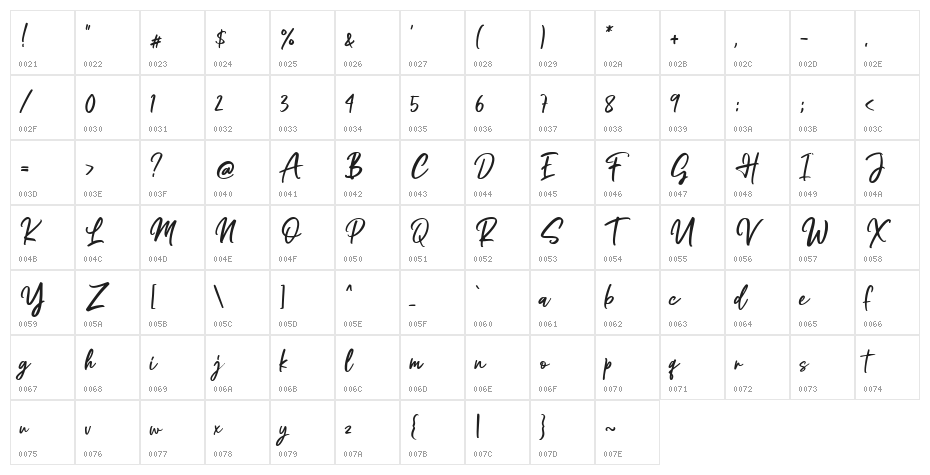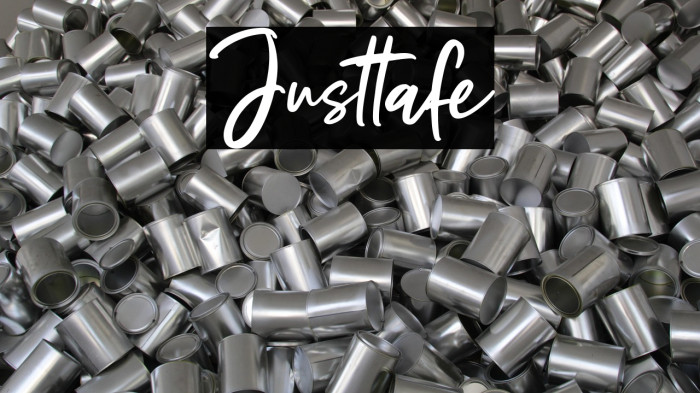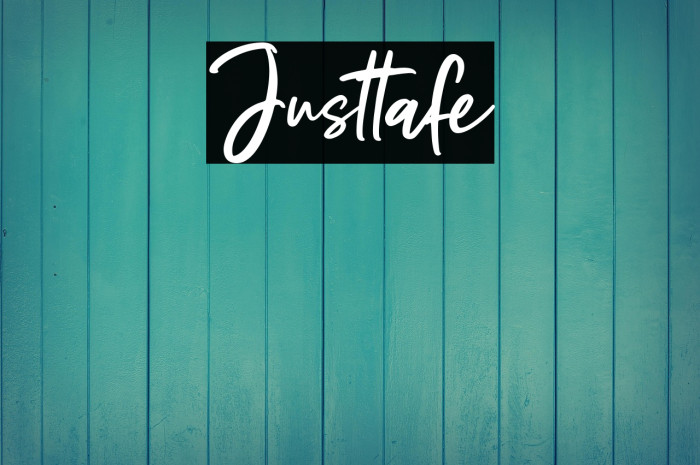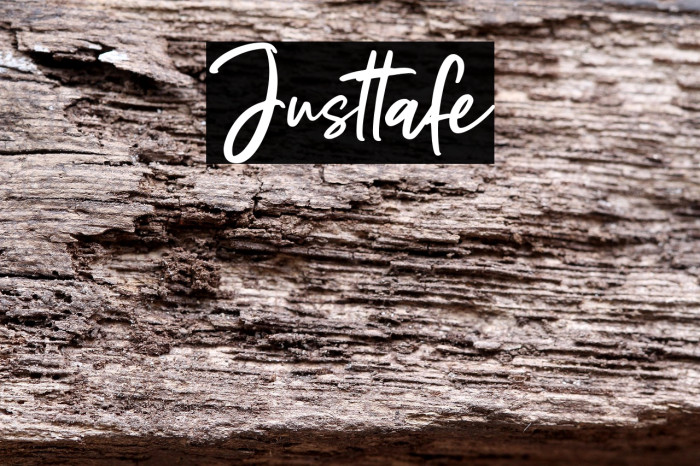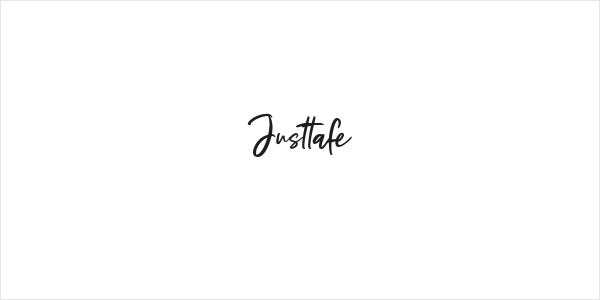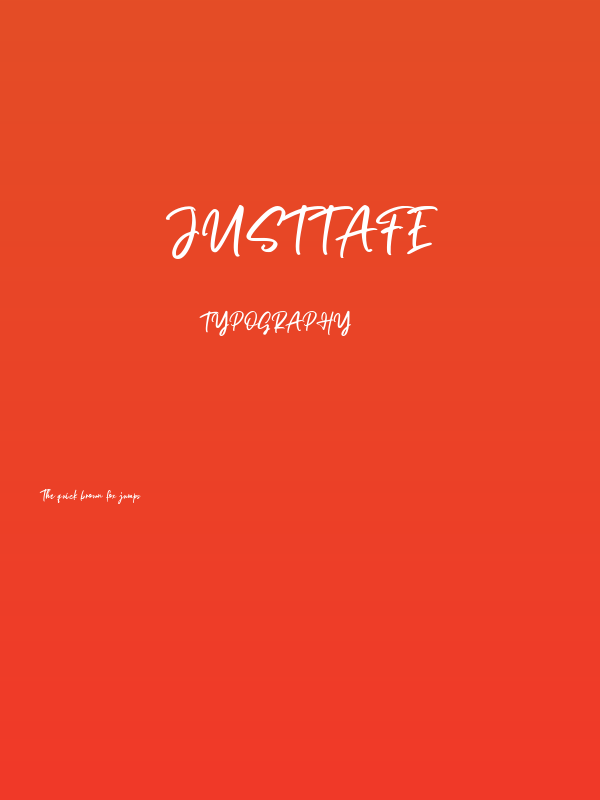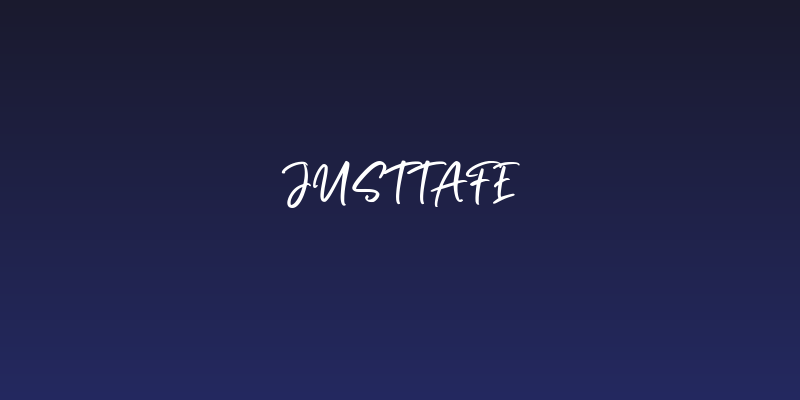
Justtafe Font
Justtafe Description
This font features a lively and energetic script style, characterized by its fluid and dynamic strokes. The letters are connected in a cursive manner, giving it a handwritten appearance that is both elegant and casual. The uppercase letters are bold and slightly slanted, while the lowercase letters maintain a consistent flow with a playful touch. The numerals and special characters complement the overall style, maintaining the same fluidity and expressiveness. This font is ideal for projects that require a personal and approachable feel, such as invitations, greeting cards, or branding materials.